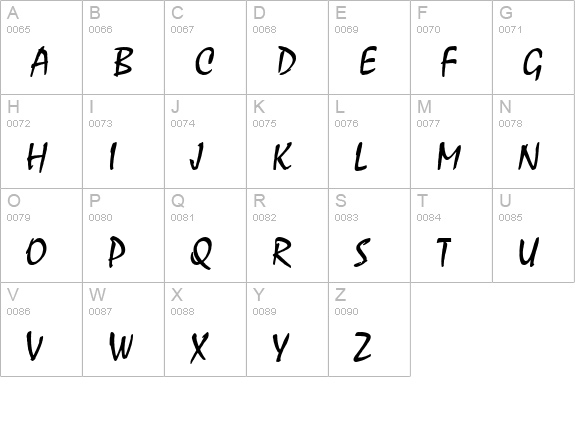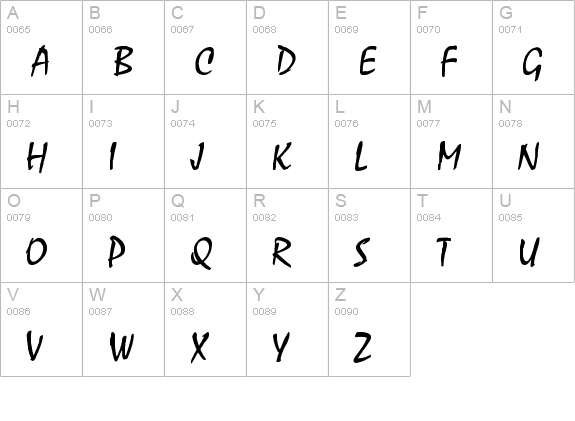
Aeolus Font Details
Aeolus font is a beautifully crafted typeface that exudes elegance and sophistication. Its sleek lines and modern design make it perfect for a wide range of design projects, from branding to editorial layouts. With its clean and versatile style, Aeolus font is sure to elevate any project it is used in. What makes Aeolus font even more appealing is that it is completely free to download! That's right, you can get your hands on this stunning font at no cost at FontsMarket.com. Whether you're a designer looking to add a new tool to your collection or a business owner in need of a fresh look for your branding, Aeolus font is the perfect choice. Don't miss out on this fantastic opportunity to enhance your designs with this amazing font - download Aeolus today!